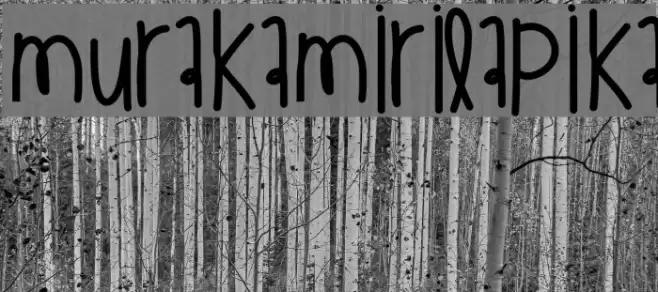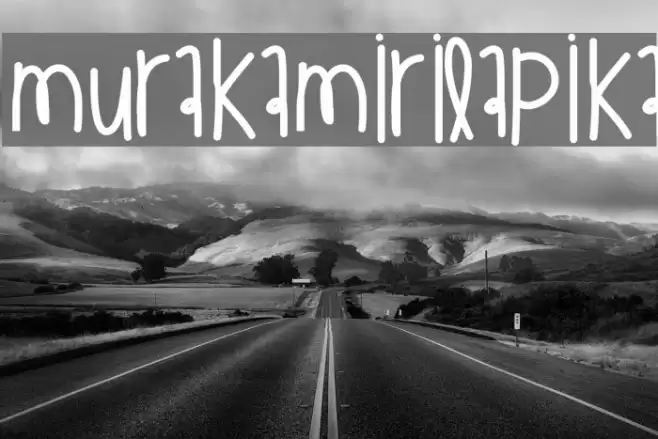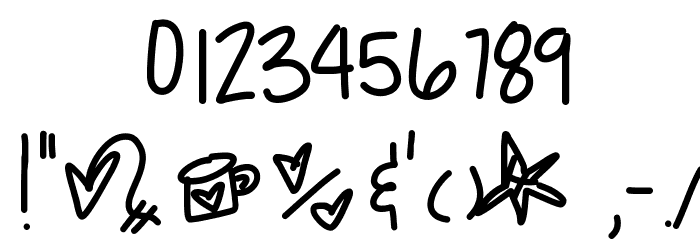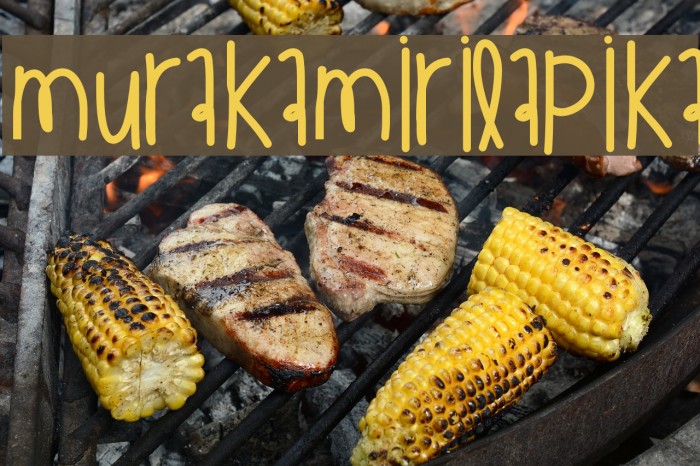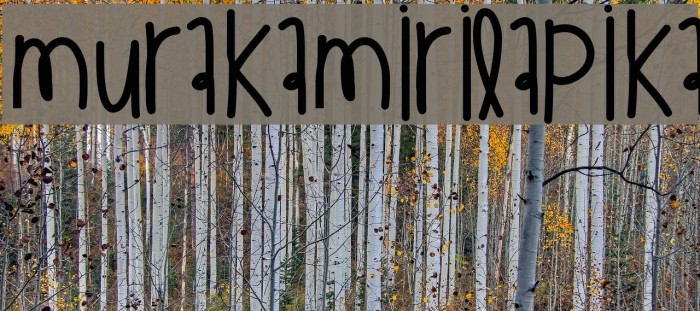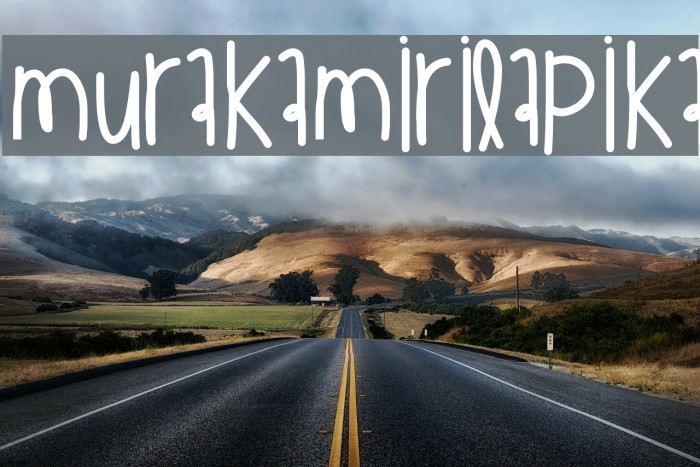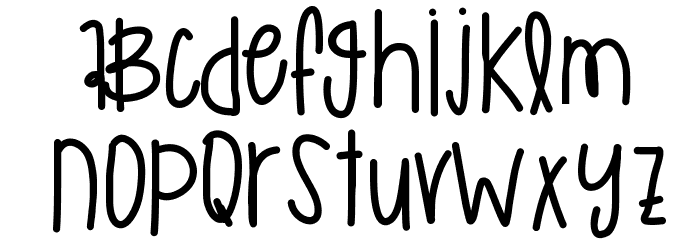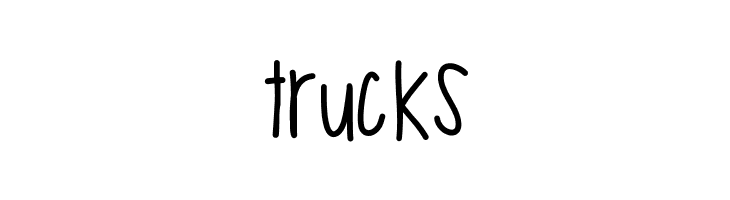
MurakamiRilapika Font
MurakamiRilapika Description
This playful and whimsical font features a handwritten style with a casual, friendly appearance. The characters are slightly irregular, giving it a personal touch that mimics natural handwriting. The strokes are consistent in thickness, providing a uniform look across all characters. The uppercase and lowercase letters are well-balanced, with a slight slant that adds to the informal feel. The numbers and special characters maintain the same playful aesthetic, making it versatile for various creative projects. The overall design is approachable and fun, perfect for adding a personal touch to any design.
A playful, handwritten font with a casual and friendly style from Handwritten fonts.
- Proposed Projects: Ideal for greeting cards, children's books, casual invitations, and playful branding.
- Overall Style: Casual, Playful
- Use Case: Headlines, Informal text, Creative projects